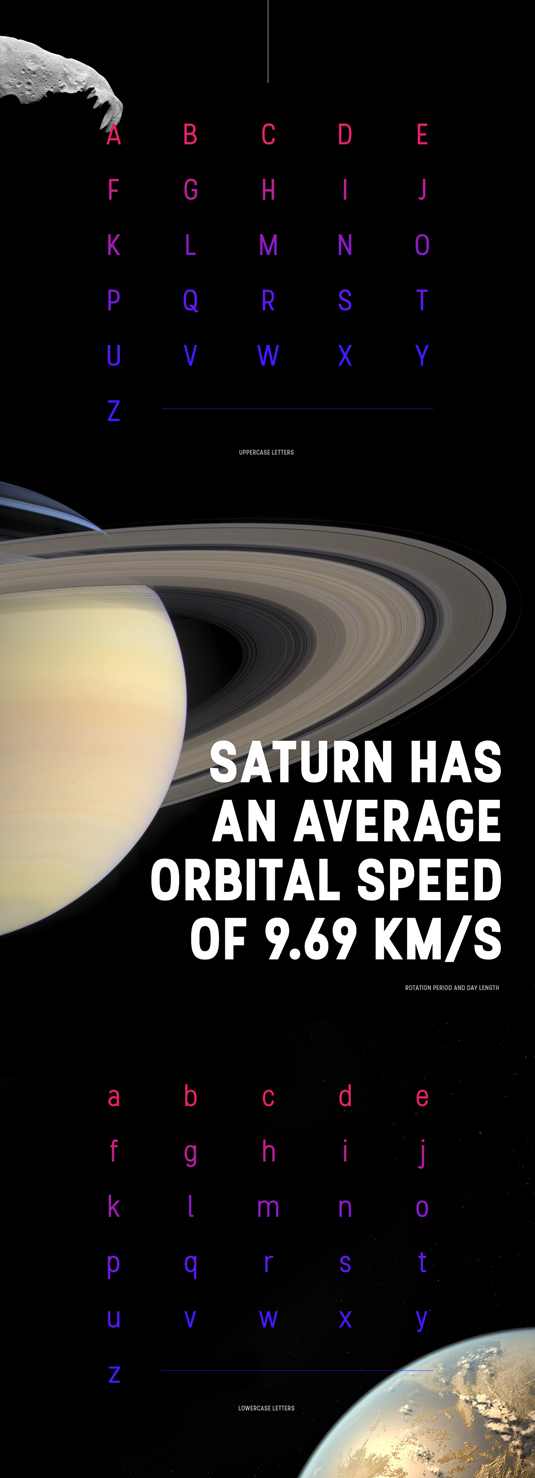
Font of the day: Stellar
Each day of the week we showcase one of our favourite fonts – today it's Stellar by Mathieu Desjardins, which is free for personal use.
Stellar by Mathieu Desjardins
Senior art director Mathieu Desjardins is the man behind today's typeface of choice, Stellar. "Stellar is a slightly condensed sans serif type with a taller x-height to give it legibility and personality," he comments on Behance. "It comes in four weights and was designed to give purpose to your ideas, galactic or atomic."